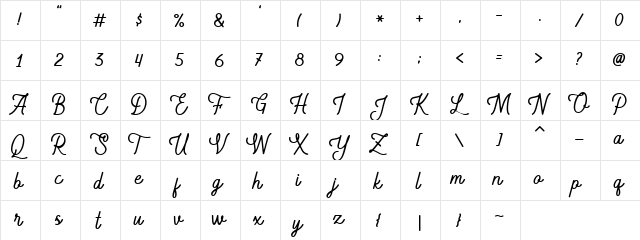
Everbright Regular
Design Context for Everbright Typeface
Everbright is a composed and adaptable typeface that performs quietly and consistently across a wide range of design contexts.